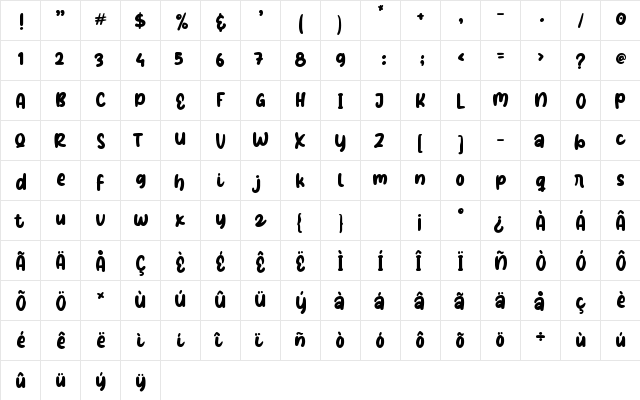
Valeerie Morrie Regular
| Designer | Colllab Studio |
Design Context for Valeerie Morrie Typeface
Valeerie Morrie is a composed and adaptable typeface that performs quietly and consistently across a wide range of design contexts.